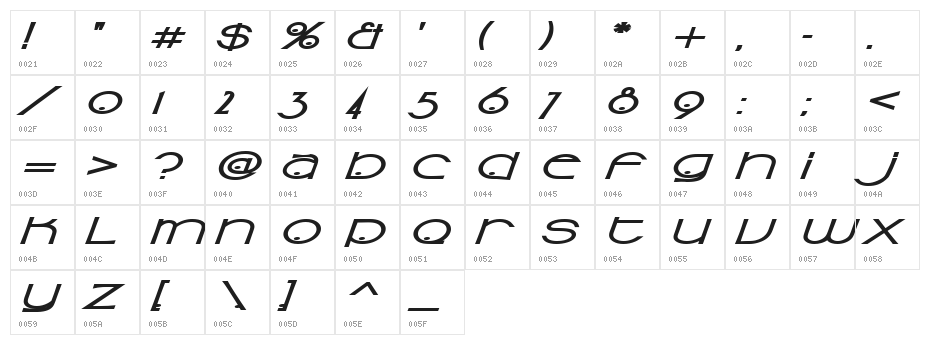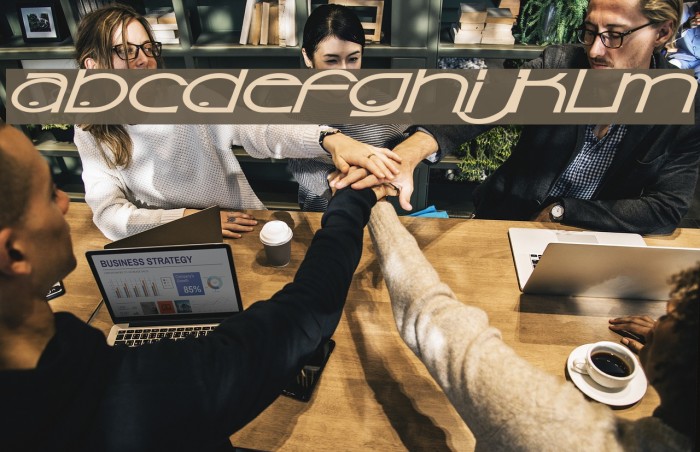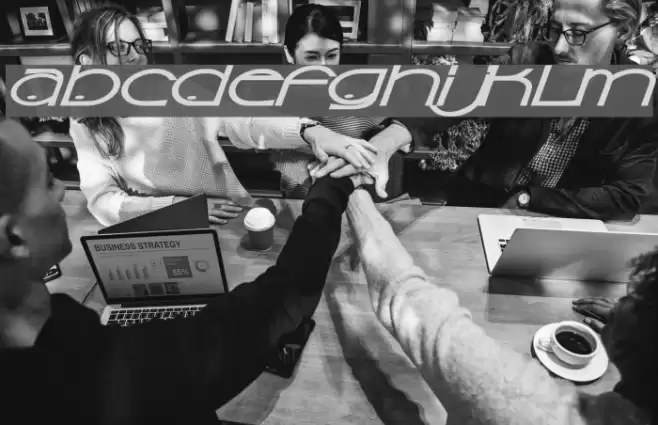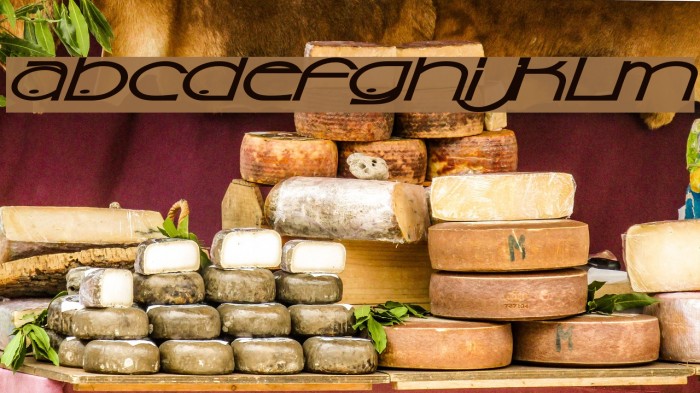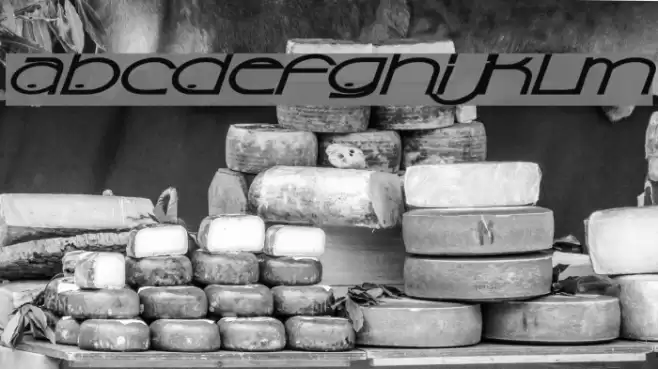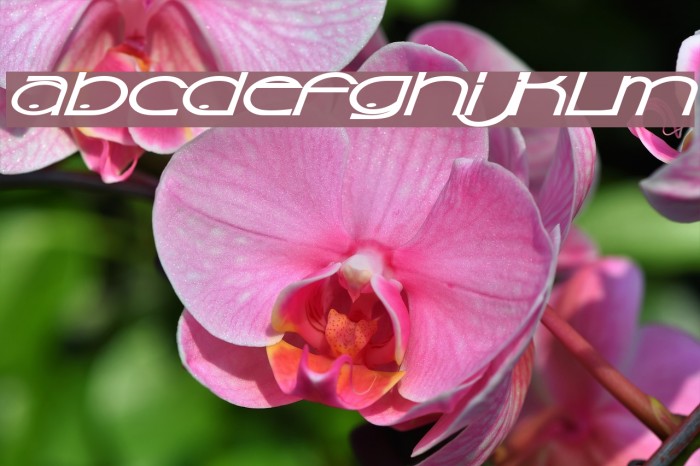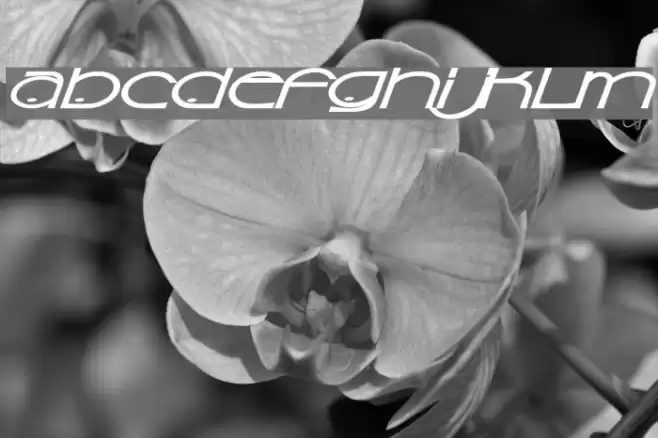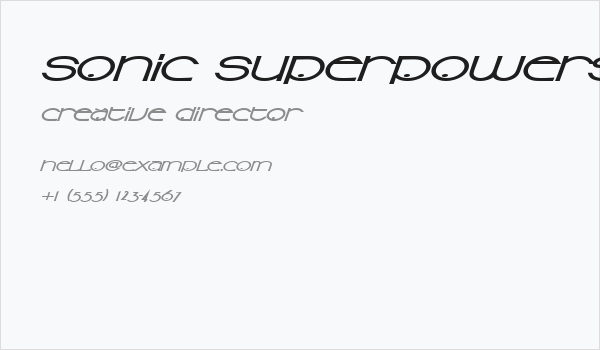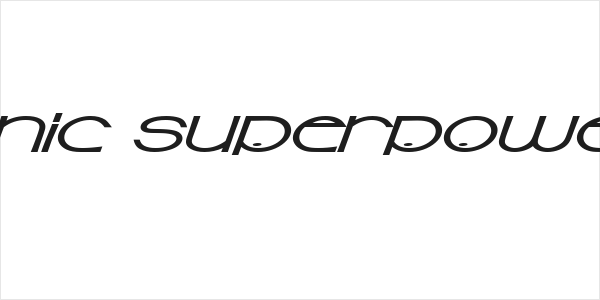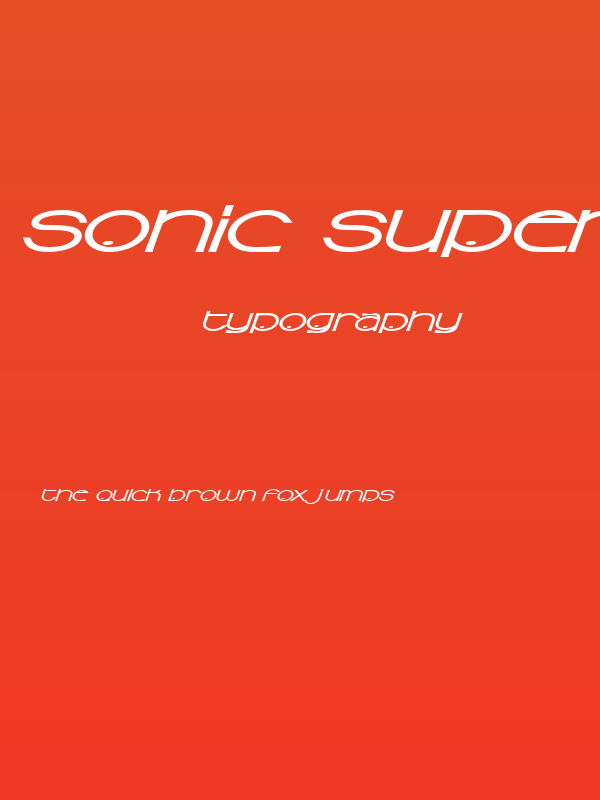
Sonic Superpowers Font
Sonic Superpowers Description
This font features a futuristic and dynamic design, characterized by sleek, elongated letterforms with a distinct forward slant, suggesting motion and speed. The characters have a unique, stylized appearance with sharp angles and smooth curves, giving them a modern and edgy look. The font includes both uppercase and lowercase letters, numerals, and a variety of special characters, all maintaining a consistent style. The design is bold and eye-catching, making it suitable for projects that require a strong visual impact.
| Proposed Projects | Ideal for sci-fi themed designs, video game titles, tech branding, and dynamic posters. |